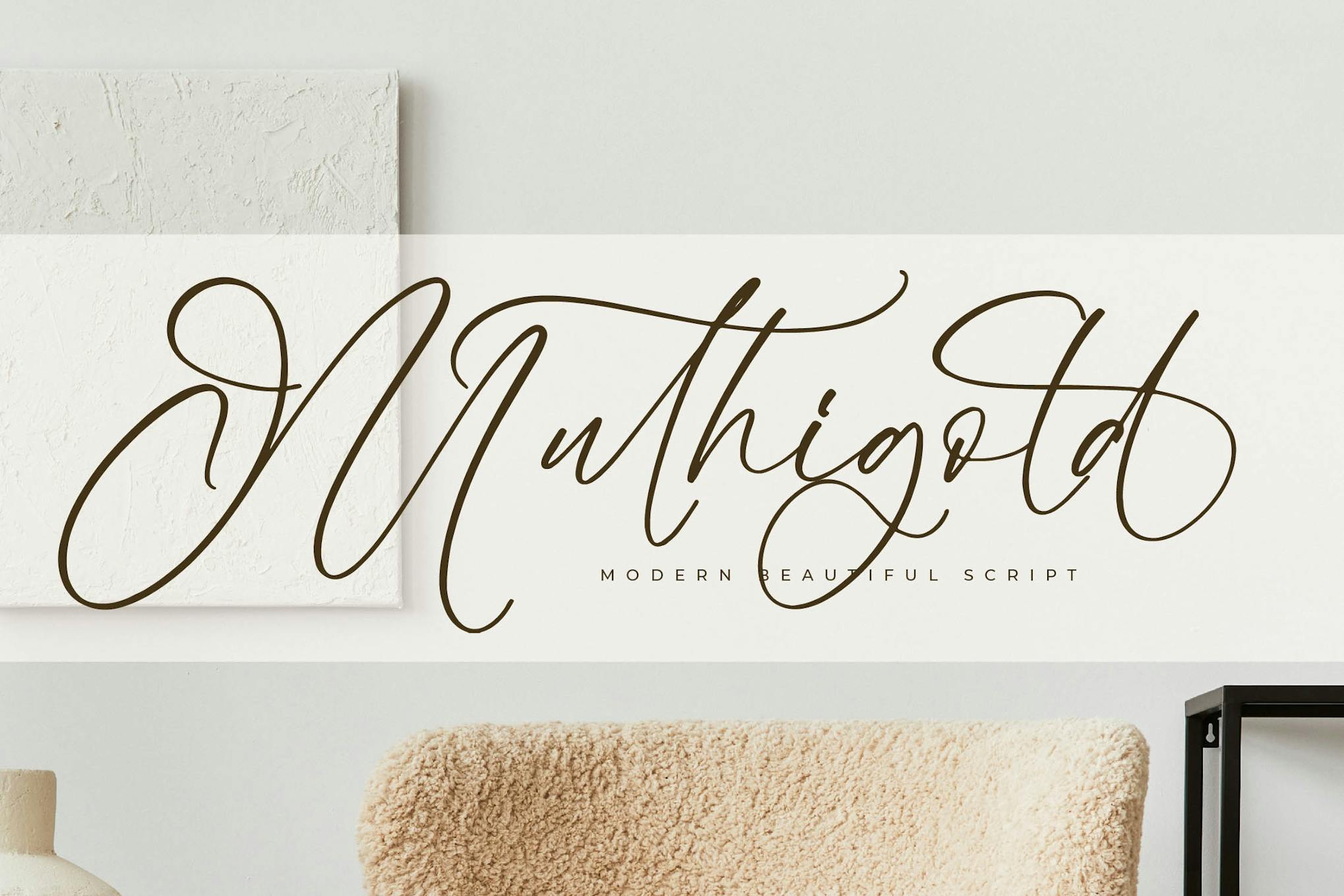
Muthigold Modern Script
Muthigold Modern Script is a stylish web font designed to enhance digital projects with its elegant, flowing script style. Suitable for any size, it features a normal spacing that ensures readability while adding a touch of sophistication. This font is perfect for those looking to elevate their branding, invitations, or any creative work with a contemporary flair.